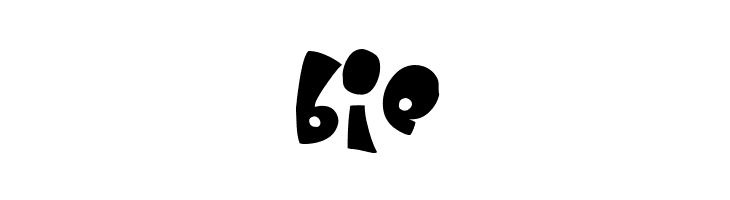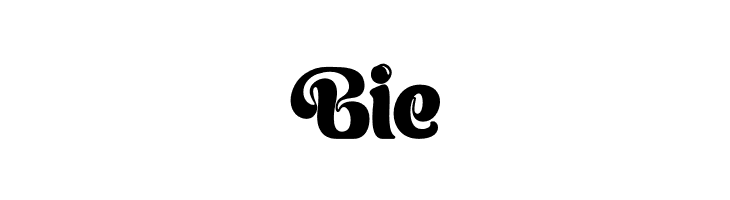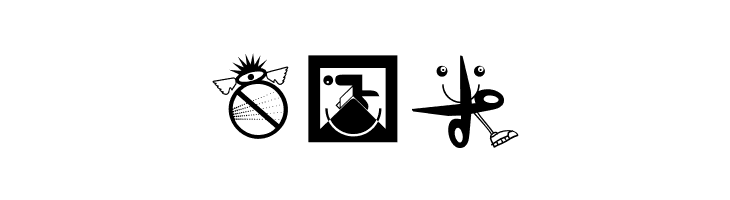
An elegant, flowing script font with interconnected letters and graceful curves.
A playful, whimsical script font with flowing, cursive letterforms and moderate contrast.
A classic serif font with elegant, tapered strokes and a refined appearance.
A bold, futuristic font with geometric and angular letterforms.
A futuristic, geometric font with bold, angular letterforms and consistent stroke width.
A futuristic italic font with angular, consistent strokes and a dynamic slant.
A bold, futuristic stencil-like font with geometric and industrial design.
Abstract shapes resembling faces, not a valid font.
A collection of whimsical space-themed illustrations featuring unique and imaginative creatures.
Playful dingbat font of space-themed cartoon characters and objects.
A playful, alien-themed decorative font with unique character designs.
A playful, creature-themed font with bold, whimsical characters.
Abstract, geometric display font with a futuristic, space-inspired theme.
A playful collection of space-themed icons in rounded squares.
Abstract, glitch-inspired circular designs with high contrast.
Cartoonish, space-themed illustrative font with unique drawings for each character.
A futuristic, bold, and geometric font with rounded edges.
A classic Blackletter font with ornate, gothic letterforms.
Cartoonish space-themed dingbat illustrations.
A bold, heavy font with strong strokes and a modern aesthetic.
Comic-inspired, character-based decorative font with illustrated glyphs.
A playful, hand-drawn font with a whimsical, cartoonish style.
Expressive illustrated hand gesture font for decorative use.
A bold, expressive handwritten font with dynamic strokes and playful curves.
A dynamic, jagged font with a sense of motion and bold, textured characters.
A modern, constellation-inspired font with a geometric and decorative style.
A bold, decorative font with characters encased in spider web designs, perfect for Halloween themes.
A bold, brush-stroke font with spiky, dynamic characters.
A bold, angular font with a gothic-inspired, modern aesthetic.
A spiral-based decorative display font with varying stroke weights.
Abstract spiral designs, not a valid font.